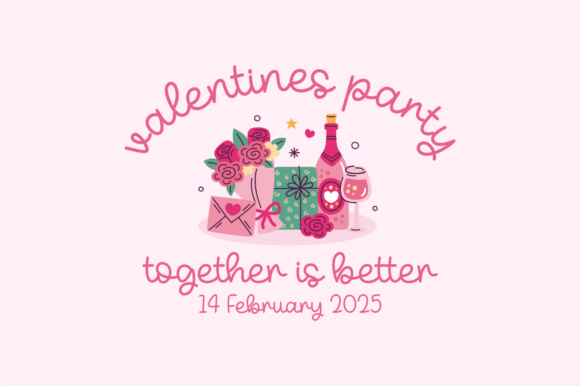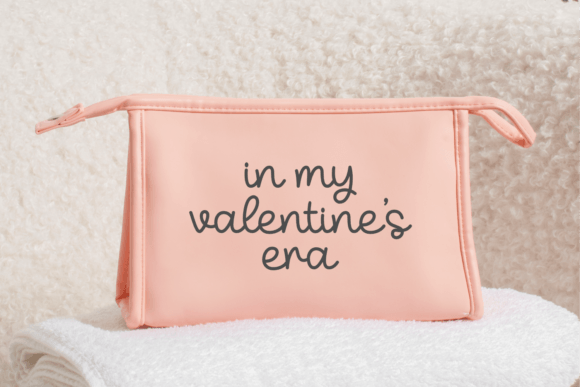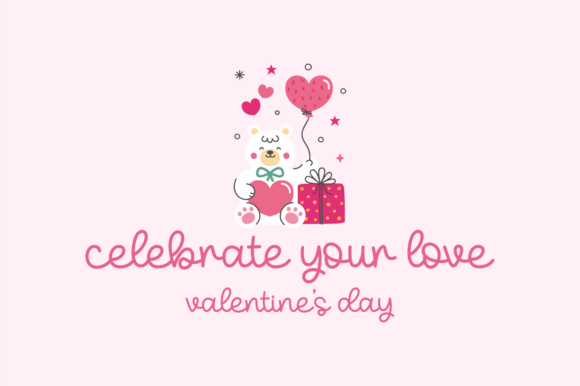
Introduction to Magic Heart Font
As designers, we’ve all been there – staring at a blank canvas, eager to bring our creative ideas to life. But sometimes, all it takes is the right font to spark that elusive spark. For me, it was the Magic Heart Font – an irresistibly cute monoline script font that instantly captured my heart. Its whimsical charm and playful style are the perfect antidotes to even the most mundane design projects.
Whether you’re crafting a free download for Valentine’s Day or designing a totebag with a transparent background, Magic Heart Font is the ultimate design resource. Its high-quality strokes and versatile nature make it an invaluable asset for any creative project. With Magic Heart Font, you can elevate your designs from ordinary to extraordinary, rekindling the romance and magic in every stroke.
Key Features of Magic Heart Font
- High-quality, vector design for a transparent background, ideal for creative projects
- Design resource suitable for a wide range of creative projects, including greeting cards, posters, and social media graphics
- Unique, hand-drawn design with a magical and whimsical feel, perfect for adding a touch of personality to your project
Honest Review: Magic Heart Font
I recently stumbled upon the Magic Heart Font, and I must say, it’s a delightful addition to any design project. The font is a beautiful, hand-drawn script that’s perfect for creating a whimsical and romantic atmosphere in your work.
- ✨ The transparent background allows for seamless integration with any design element.
- ✨ The high-quality design is crisp and clear, even at larger font sizes.
- ⚠️ The font is a bit limited in its versatility, making it best suited for specific creative projects that require a romantic or whimsical feel.
- ⚠️ The font doesn’t come with a comprehensive character set, which may limit its use in more complex design projects.
Overall, I’m impressed with the Magic Heart Font’s charm and versatility. While it may not be the perfect font for every project, it’s a valuable resource for designers working on creative projects that require a touch of magic.
To get the most out of the Magic Heart Font, try pairing it with a transparent background to create a sense of depth and dimension. You can also experiment with different font sizes and styles to add visual interest to your design.
The Magic Heart Font is ideal for creative projects that require a touch of personality and whimsy, such as:
- Children’s book illustrations
- Social media graphics and posts